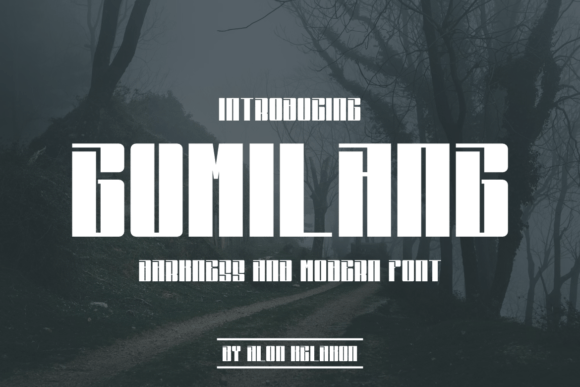
Welcome to the world of Gumilang Font, a typographic masterpiece that will infuse your designs with elegance and sophistication. Step into a realm of visual allure, where your words will dance with grace upon the digital canvas. Gumilang Font is the ultimate choice for the discerning designer, the creative visionary who seeks fonts that transcend the ordinary.
Dive into the captivating world of Gumilang, a sans serif font that embodies minimalism and modernity. Its sleek lines and clean aesthetic create a visual feast for the eyes, effortlessly elevating your designs to new heights. Whether you're crafting book covers, magazines, social media posts, or invitations, Gumilang Font will lend a touch of timeless beauty to your creations.
Born from the creative mind of alonkelakon, Gumilang Font is a testament to the power of simplicity. Its minimalist design allows your words to take center stage, ensuring they shine with unparalleled clarity and impact. With Gumilang Font, your designs will radiate an aura of sophistication that will leave a lasting impression on your audience.
Unlock the full potential of Gumilang Font and transform your designs into captivating works of art. Its versatility knows no bounds, adapting seamlessly to a myriad of projects. Unleash your creativity and explore the endless possibilities that await you with Gumilang Font.